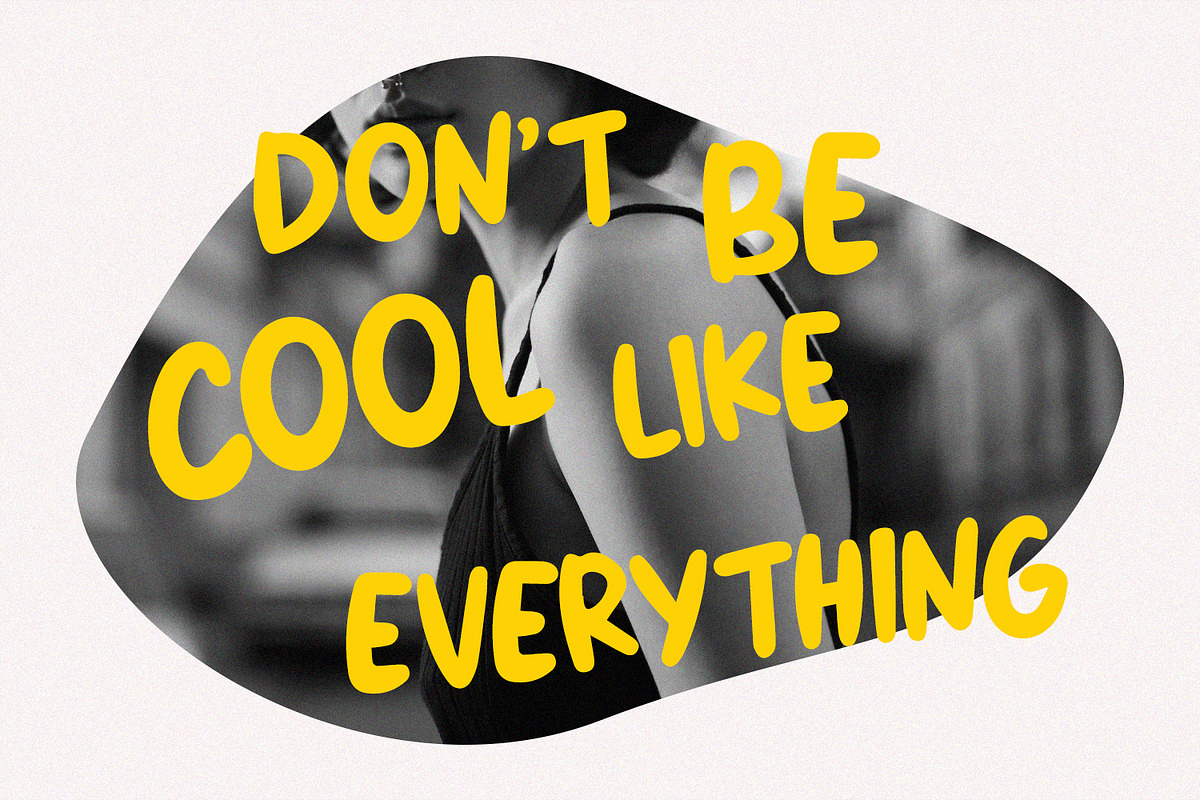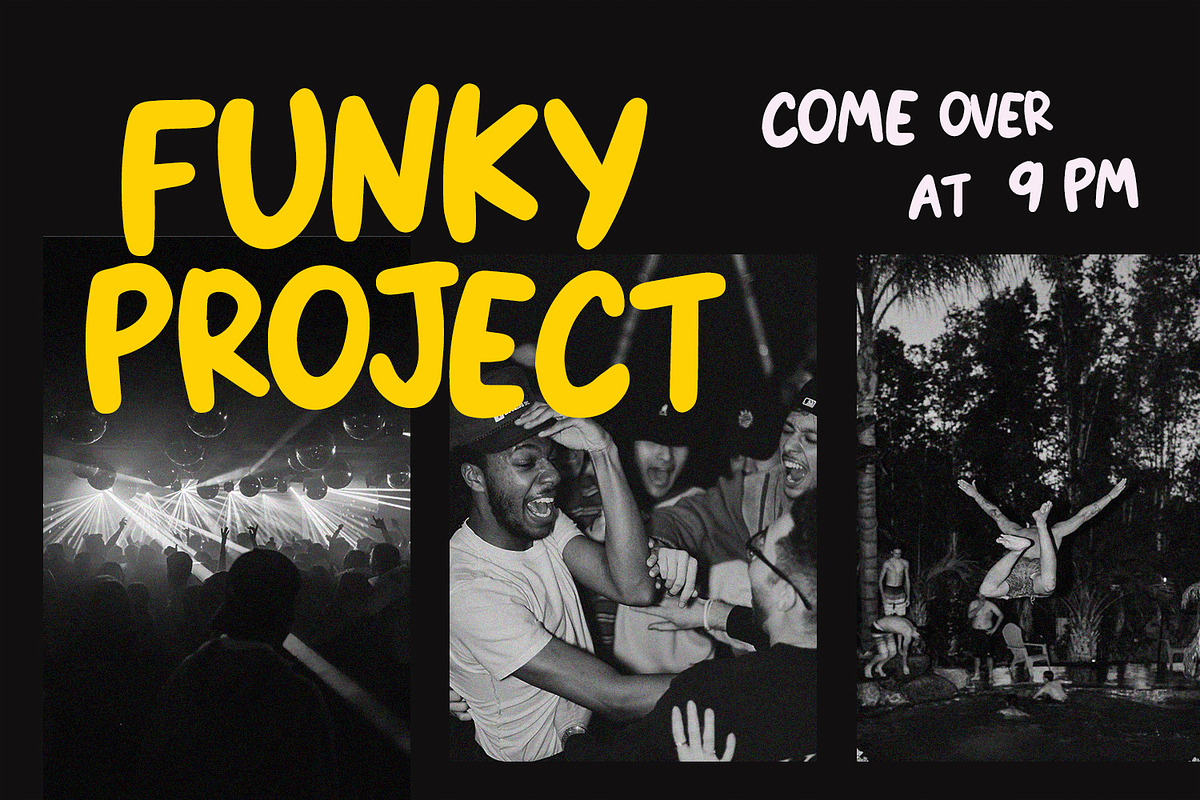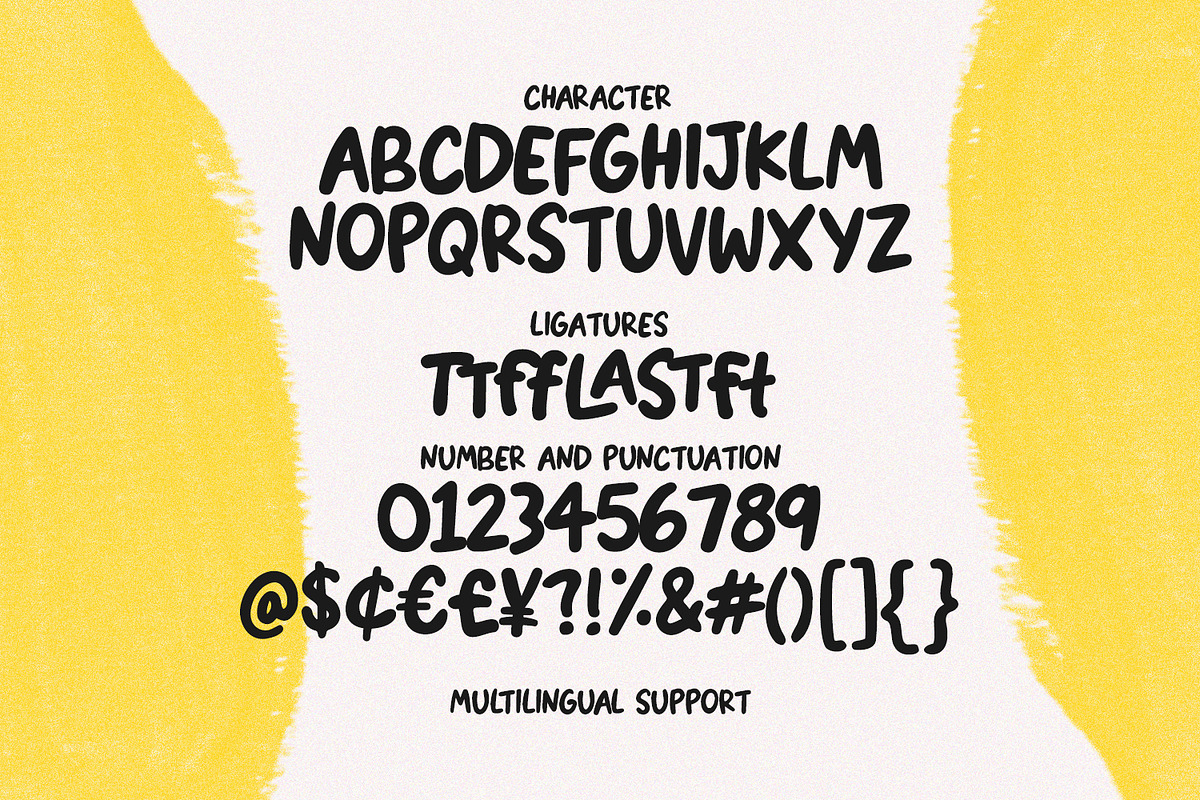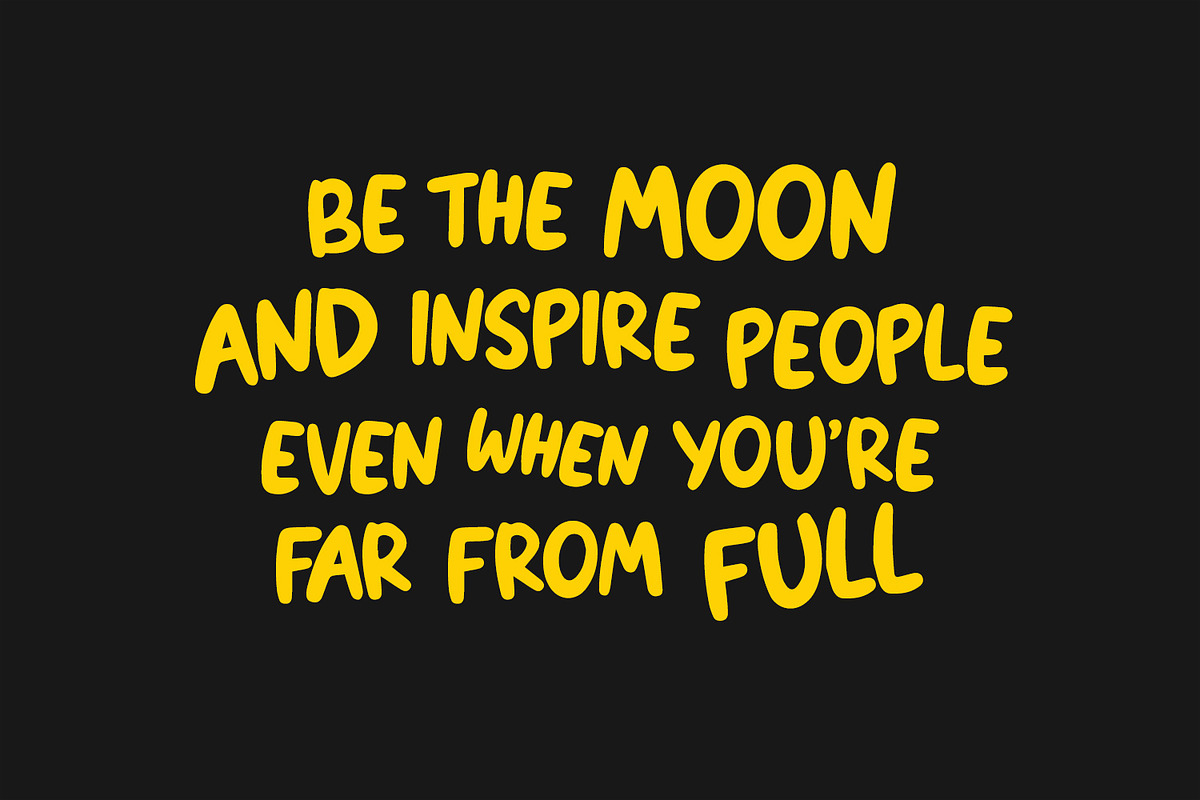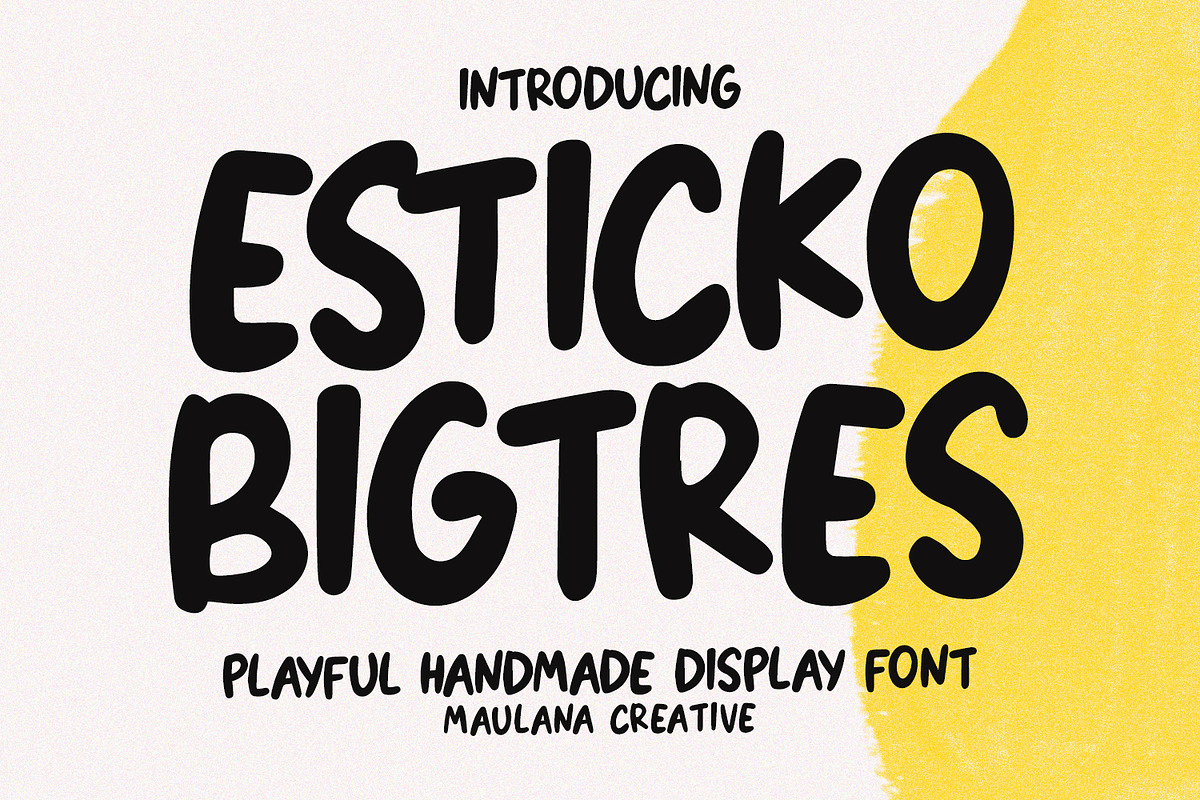
Esticko Bigtres Playful Handmade
Inject fun and energy into your designs with Esticko Bigtres!
Esticko Bigtres is a vibrant, handmade display font designed to bring a friendly and approachable feel to any project. With its bold, rounded strokes and organic "marker-style" aesthetic, this font captures the authentic charm of hand-drawn lettering.
Whether you are working on a children’s book, catchy social media graphics, quirky branding, or bold packaging, Esticko Bigtres provides a unique personality that stands out. Its heavy weight ensures maximum readability, making it perfect for headlines, posters, and merchandise.
- Character set with Uppercase & Lowercase.
- Numerals & Punctuation.
- Multilingual Support.
- Logo & Branding
- Apparel & T-shirt Design
- Kids & School Projects
- Food Packaging & Menus
- YouTube Thumbnails & Social Media Quotes